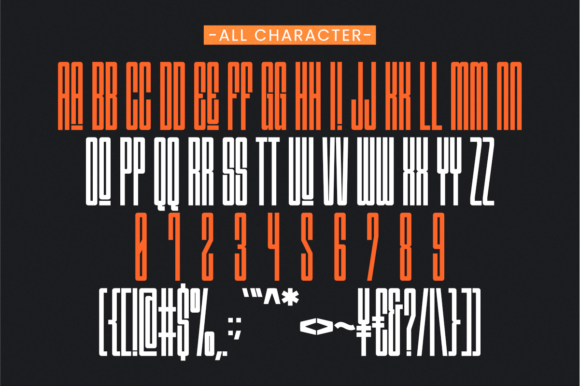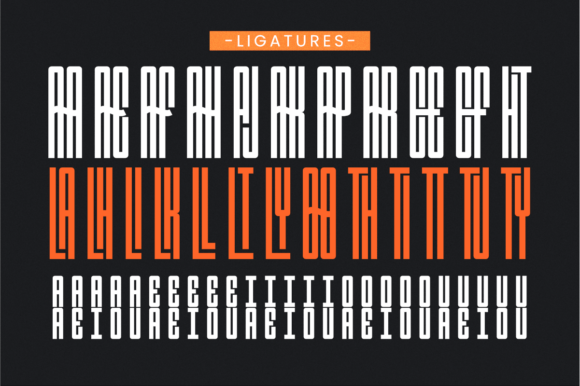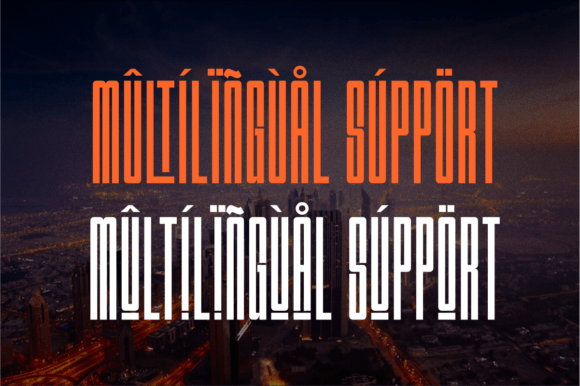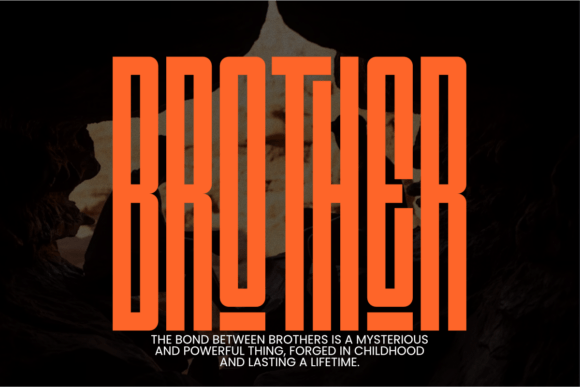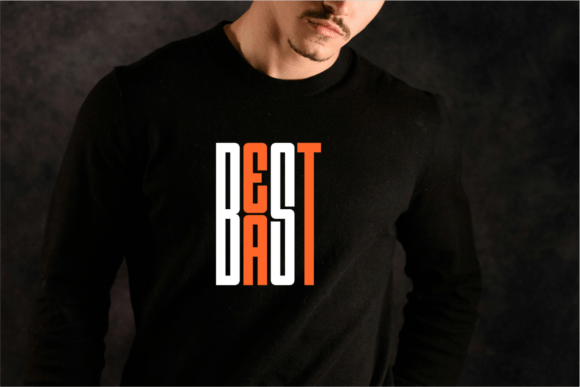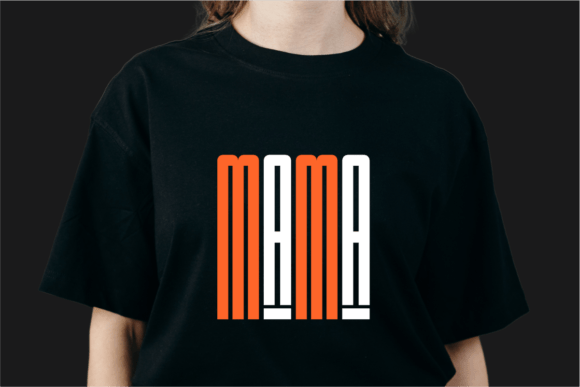
The Perfect Font for Making a Statement
Have you ever stared at a blank page, eager to bring your creative vision to life, but struggling to find the right font to match your bold idea? That’s a moment we’ve all been there – when the perfect font can make all the difference between a design that’s just okay and one that truly stands out. That’s where the Caniago Font comes in – a powerful, condensed sans serif font that’s designed to make a statement.
With its sleek, geometric balance and bold vertical structure, Caniago Font is perfect for creating impactful logos, headlines, and branding assets that demand attention. Whether you’re designing for tech, esports, music, fashion, or editorial projects, this font delivers bold personality with clean professional style. And with 49 sleek ligatures, you’ll have endless possibilities to explore.
Caniago Font Key Features
• Font Family: Caniago Font is a sans-serif font family with 12 styles, including regular, bold, italic, and bold italic.
• Character Set: Supports a wide range of languages, including Latin, Cyrillic, and Greek scripts.
• Unique Characteristics: Caniago Font features a modern and clean design, with a unique blend of geometric and organic shapes, making it perfect for use in digital and print media.
Caniago Font Review
Overall, the Caniago Font has some great qualities that make it a decent choice for various design projects. ✨
• Unique aesthetic: The font’s distinctive, modern design makes it stand out in a crowded market.
• Legibility: Despite its quirky appearance, the Caniago Font is surprisingly readable, even at smaller font sizes.
• Font pairing versatility: It can be paired with a wide range of fonts, from modern sans-serifs to classic serif fonts.
• ⚠️ Limited font weight options: The Caniago Font only comes in a few font weights, which may limit its use in more complex design projects.
• ⚠️ Some characters may not display correctly: There have been reports of issues with certain characters, such as the letter ‘Q’, not displaying correctly in some applications.
• ⚠️ Not ideal for body text: While the Caniago Font is great for headings and titles, it may not be the best choice for large blocks of body text due to its unique, attention-grabbing style.
Overall impression:
The Caniago Font is a solid choice for designers looking for a modern, eye-catching font for their projects. While it may have some limitations, its unique aesthetic and versatility make it a great addition to any designer’s toolkit.
Getting the Most Out of the Caniago Font
To get the most out of the Caniago font, use it for:
Headings and titles
Body text with a personal touch
Branding and logos
Combine with other fonts for a unique look
The Caniago font is ideal for:
Designing modern and elegant documents
Creating a personal brand
Adding a touch of sophistication to your designs